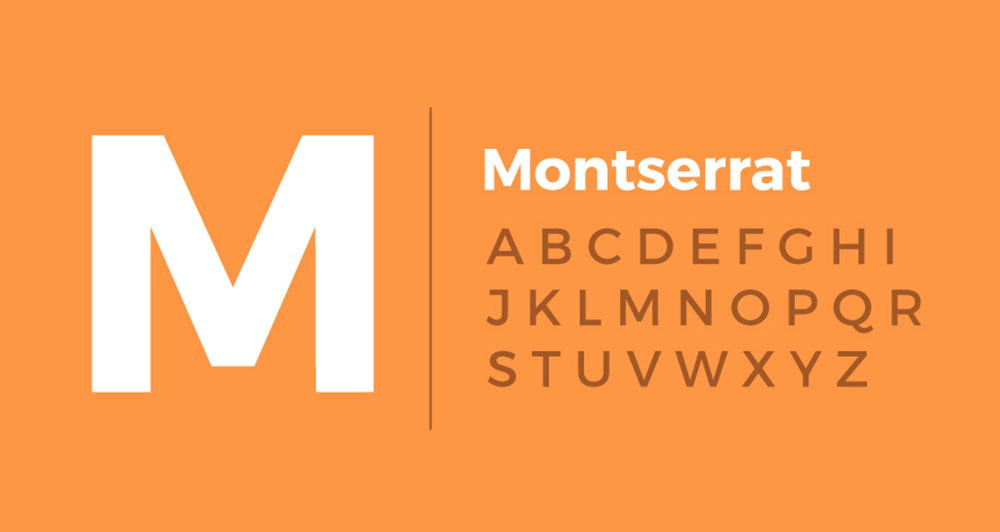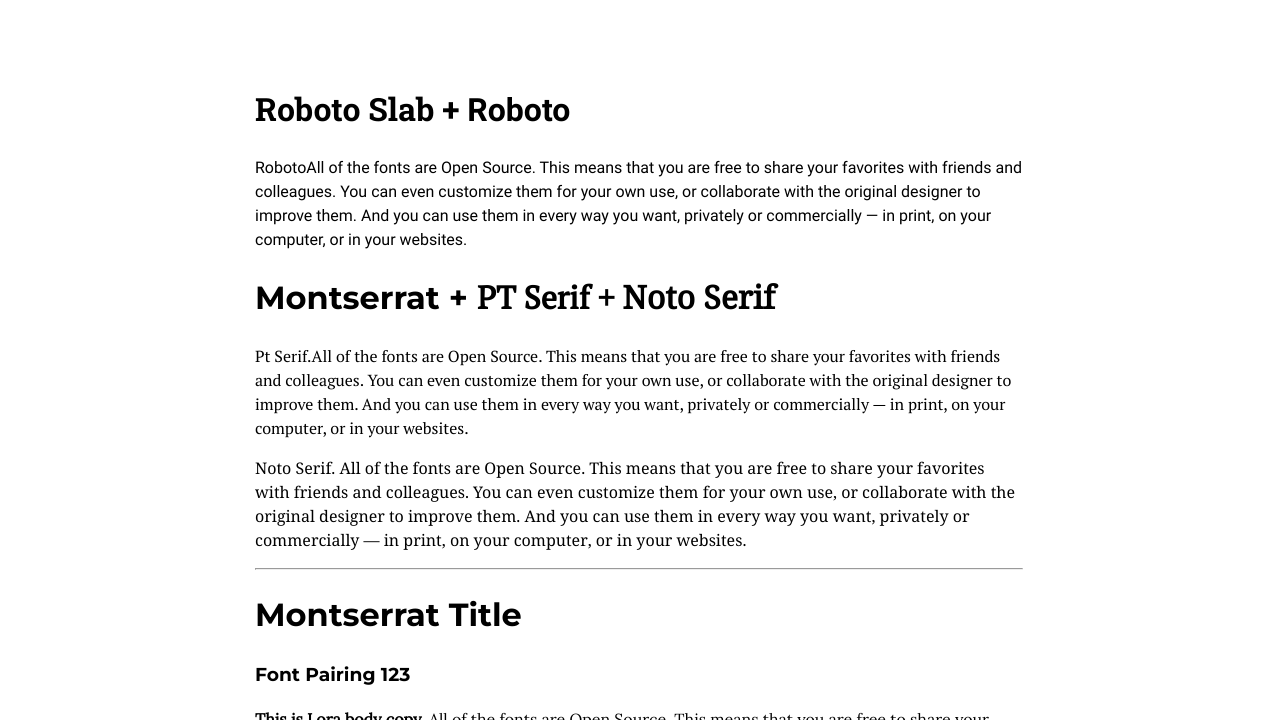
Free Montserrat Font Pairing Script Free Typography Fonts
The slight angles on the stems of the letters create a unique interesting feature to this font.
Montserrat font pairing script. It comes in 17 weights including thin light regular medium bold and black weights. Thats a tall order because some have letters that dont match up properly with each other have uneven spacing in between letters or have characters that are downright unreadable. Keep your hand lettered text to a minimum. The star is your gorgeous handwritten font.
The sidekick is the plain font you pair it with. Skolar latin and proxima. It is a font that was created within the montserrat area of buenos aires as many letterforms and letters are based on the signs and scriptures within that area. 3 pair handwritten script fonts with plain fonts.
Montserrats light modern sans serif letterforms offset courier news heavier retro vibe perfectly. Montserrat is one of the best fonts to do that. Beautiful google font combinations and pairs. A stylish simple font that can be used in many different weights and sizes.
The montserrat project began with the idea to rescue what is in montserrat and set it free under a libre license the sil open font license. Best montserrat font pairing. Give 16px a shot for content. First you have to find a beautiful legible script font.
It goes well with open sans source sans pro lora roboto pt serif georgia esteban lato gill sans and tinos. Libre baskerville open sans. Simply click anywhere in the paragraph or heading text and start typing. Google font montserrat was designed specifically for use online while courier new is a classic typewriter font.
So here are the best montserrat font pairing options that you can use for current design projects today. All of this text is editable. On paper metaphorically you might not think theyd make the ideal font pairing but youd be wrong. It also includes condensed styles in light regular semi bold bold and extra bold.
Montserrat is a sans serif font. Pairing script fonts with complimentary typefaces can be tricky. Dont make your star compete for attention. All of this text is editable.
Simply click anywhere in the paragraph or heading text and start typing. Fira sans montserrat. It should be paired with a thin font like montserrat. Get more tips on font pairing.
Sans serif serif font combinations. Font pair helps designers pair google fonts together. With that out of the way lets move on to the 50 perfect font combinations to kickstart your next design. If youre thinking about using montserrat then try 30px for headers.